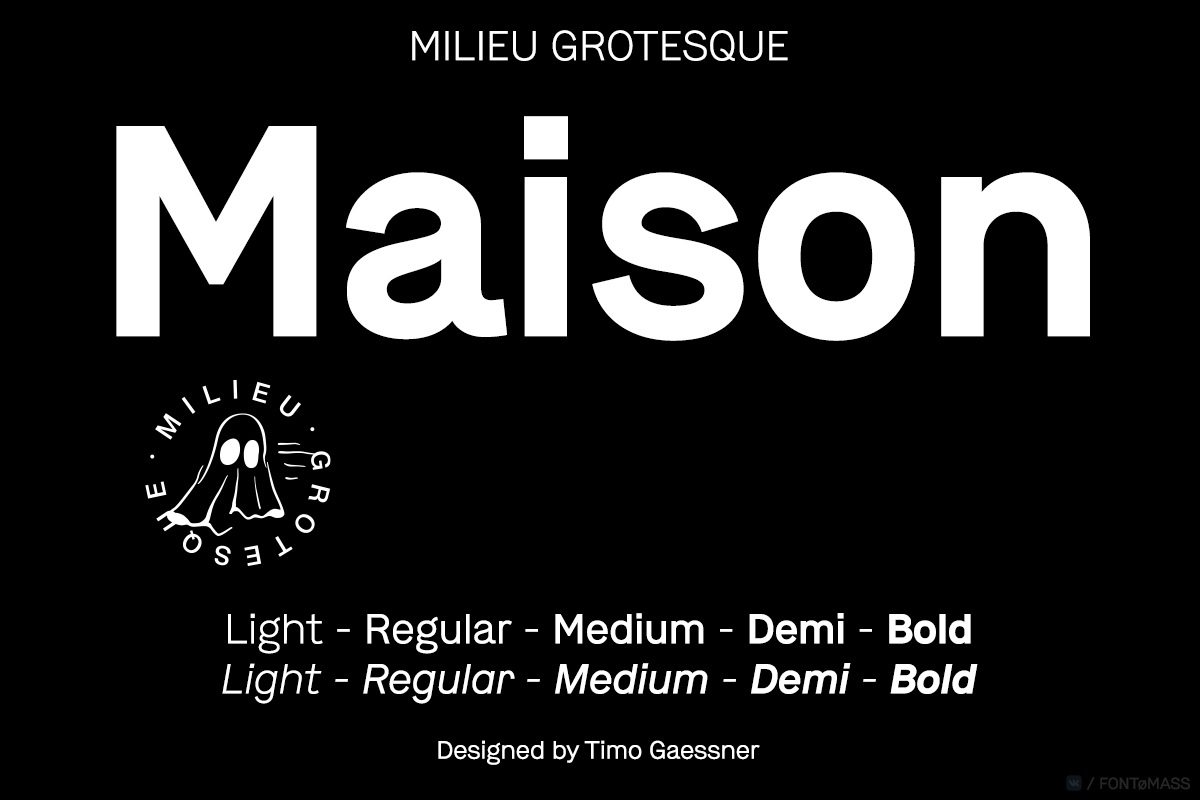
Maison Font
Maison Font is perfect for luxury real estate branding, high-end architectural firms, premium interior design studios, upscale hospitality groups, exclusive boutique hotels, sophisticated restaurant chains, elegant lifestyle magazines, luxury fashion brands, premium home goods, and refined corporate communications. This distinguished typeface excels in applications where sophistication, elegance, and residential luxury are fundamental design elements.
Maison Font is exciting because it embodies the essence of refined living and architectural sophistication through its harmoniously balanced letterforms and thoughtful proportional relationships. Its carefully crafted characters feature subtle curves, precise angles, and elegant spacing that create a sense of residential comfort combined with professional authority. The font's warm yet sophisticated personality delivers the perfect balance between approachability and luxury that defines premium lifestyle branding.
The Maison Font family includes Thin, Light, Regular, Medium, Bold, and Black weights, each available in Roman and Italic styles. This comprehensive twelve-font family provides extensive design flexibility while maintaining the consistent residential elegance that characterizes luxury living brands. Advanced OpenType features include stylistic alternates, contextual ligatures, and refined spacing that optimize performance for both intimate communications and large-scale architectural presentations.
Professional designers choose Maison Font for its ability to convey residential luxury, architectural sophistication, and lifestyle excellence. The font's balanced personality works brilliantly in both corporate environments where professionalism is paramount and consumer applications where emotional connection and aspiration are essential. Its elegant architecture makes it ideal for brands seeking to communicate quality living and sophisticated lifestyle values.
The residential elegance of Maison Font elevates brand communications with its sophisticated warmth and architectural refinement. Its versatile character appeals to luxury consumers while maintaining the professionalism required for high-end real estate transactions and premium hospitality experiences.
Experience the luxury living aesthetic of Maison Font and discover why prestigious real estate firms, luxury hospitality brands, and sophisticated lifestyle companies choose this exceptional typeface for their most refined communications.